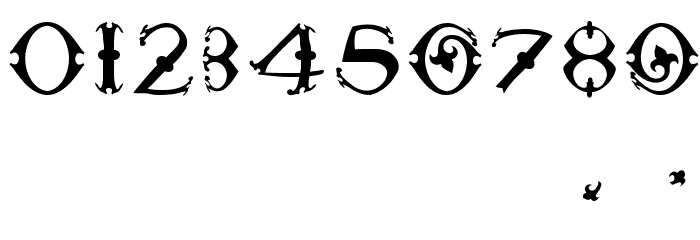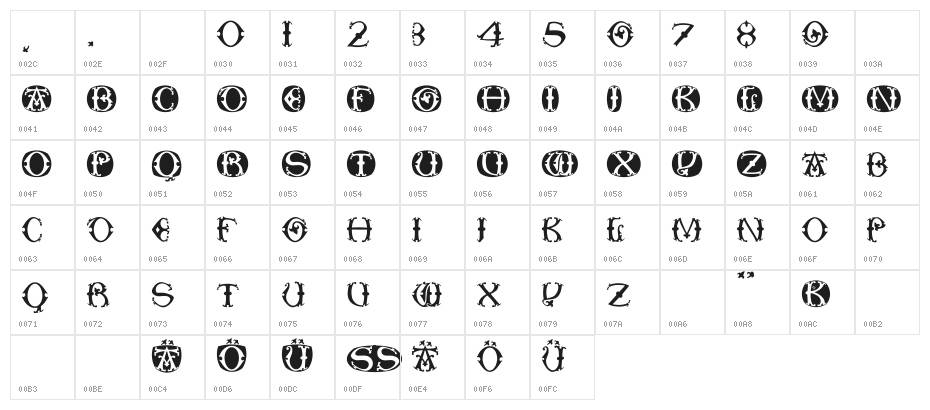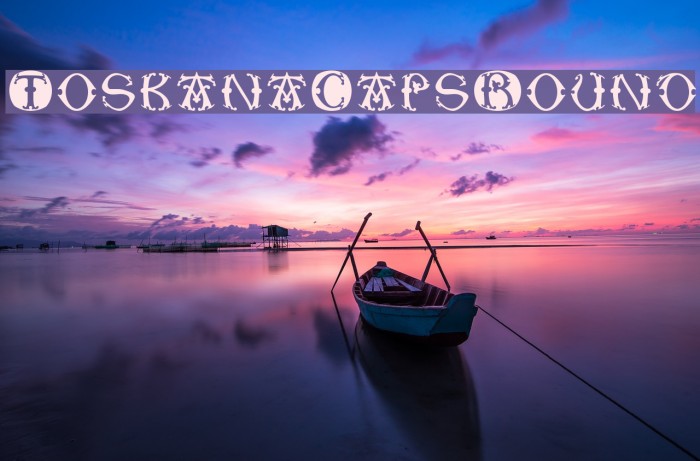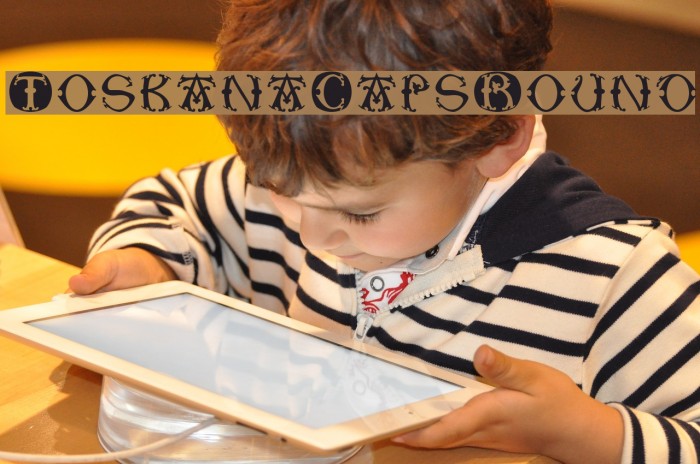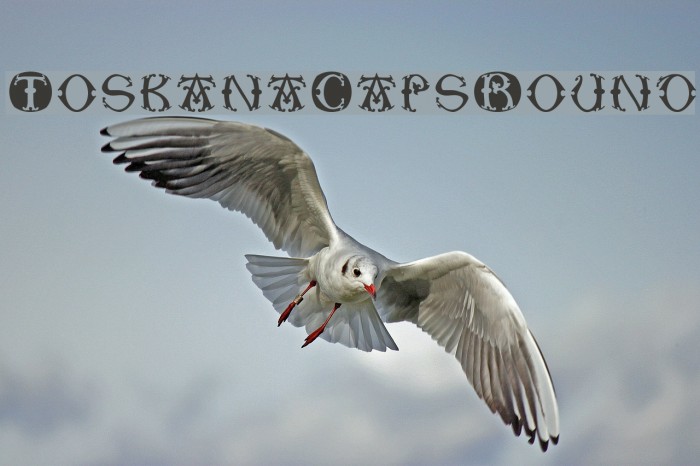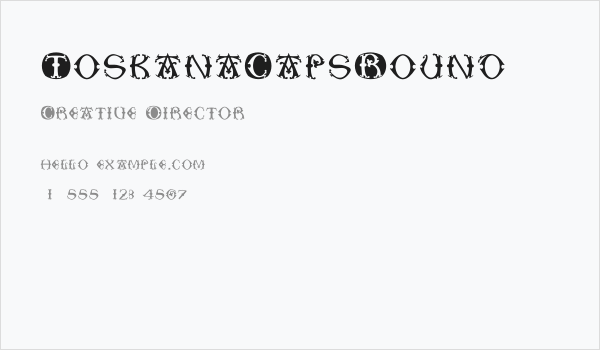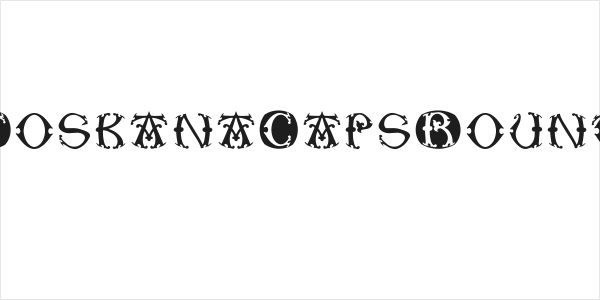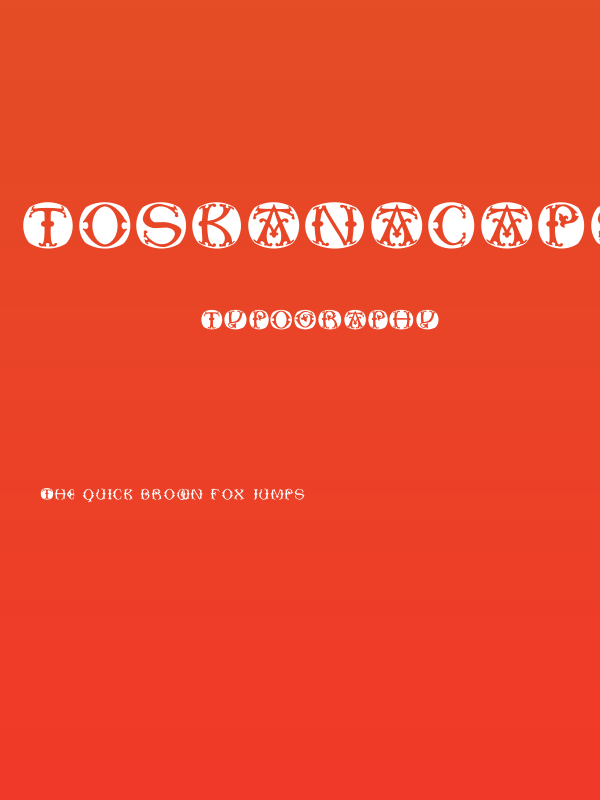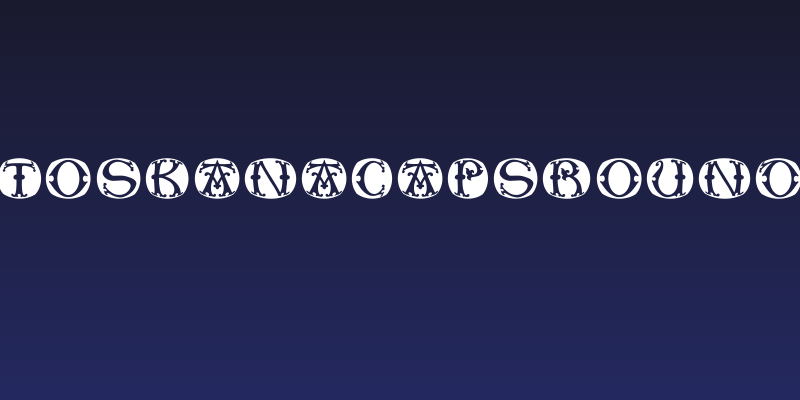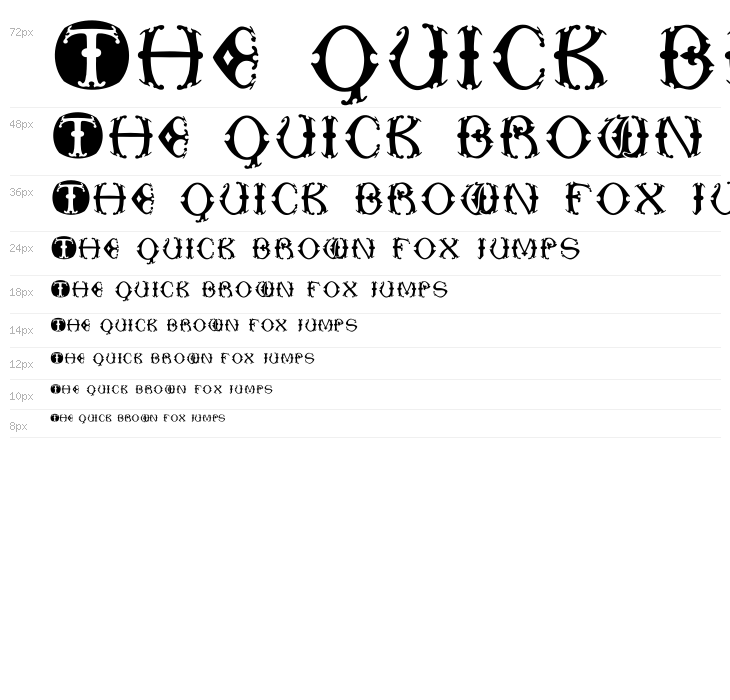
ToskanaCapsRound Font
ToskanaCapsRound Description
This font features an ornate and decorative style, characterized by intricate flourishes and embellishments that give it a unique, artistic appearance. Each letter is enclosed within a circular shape, adding a sense of cohesion and unity to the overall design. The font's elaborate details and bold strokes make it stand out, capturing attention with its dramatic flair. The combination of sharp edges and smooth curves creates a dynamic contrast, enhancing its visual appeal. This font is ideal for projects that require a touch of elegance and sophistication, making it suitable for invitations, posters, and branding materials that aim to convey a sense of luxury and creativity.